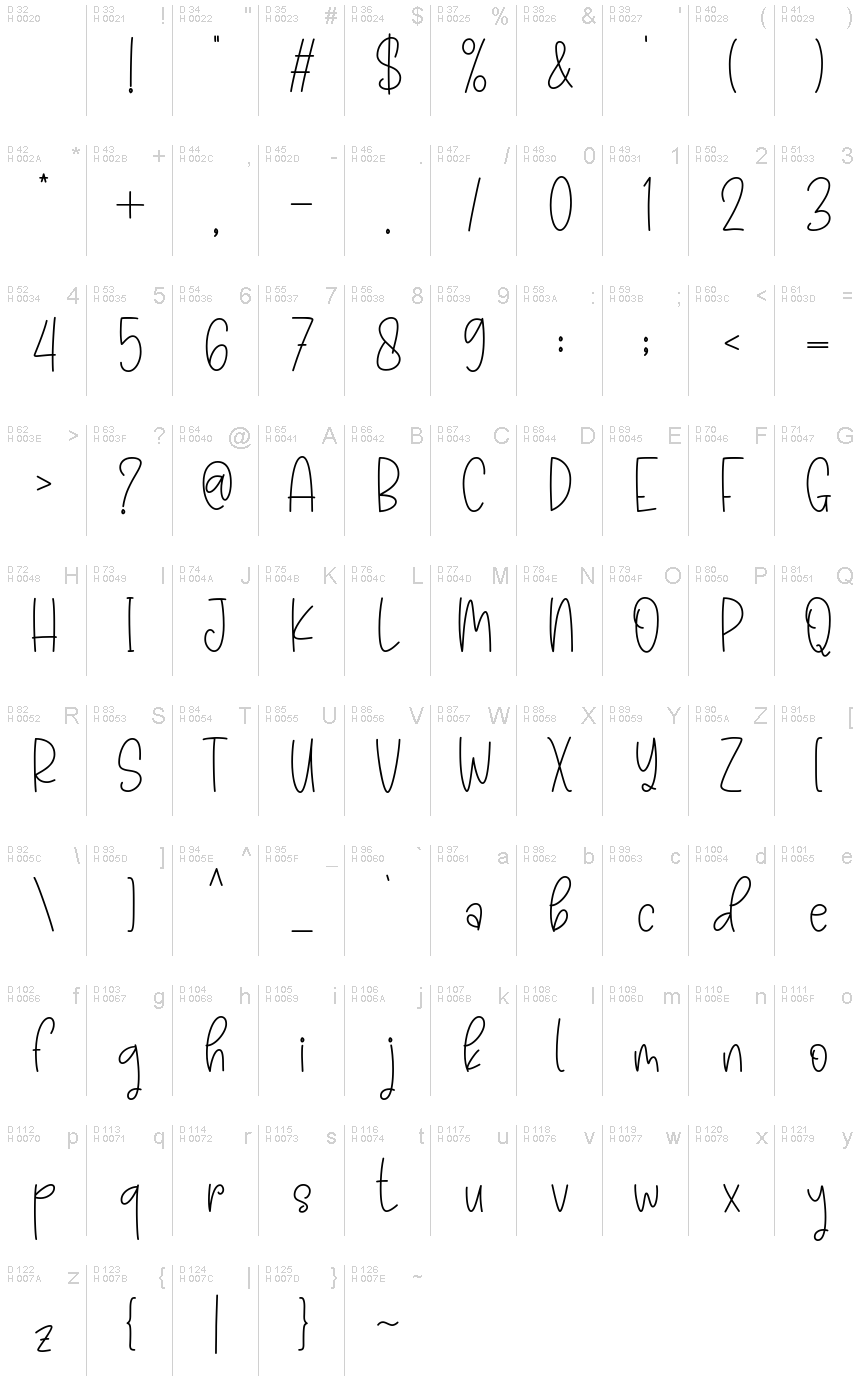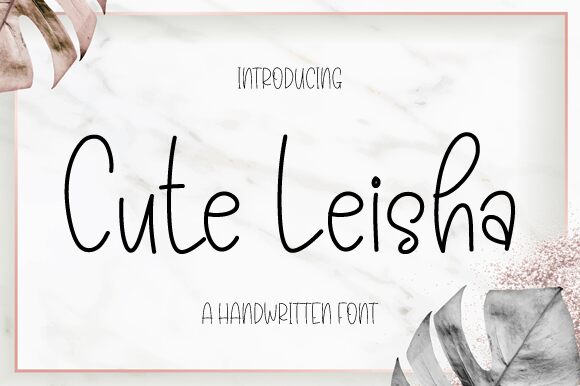
Cute Leisha
Cute Leisha is a charming handwritten font crafted by Nirmala Creative that exudes a personal and intimate feel. Its light strokes and playful curves evoke the warmth of a personal note, making it perfect for designs that require a touch of individuality and friendliness. The casual elegance of Cute Leisha lends itself beautifully to invitations, greeting cards, and branding that aim to convey a sense of comfort and approachability.
With its handwritten style, this font is ideally suited for projects that benefit from an authentic, handcrafted aesthetic.